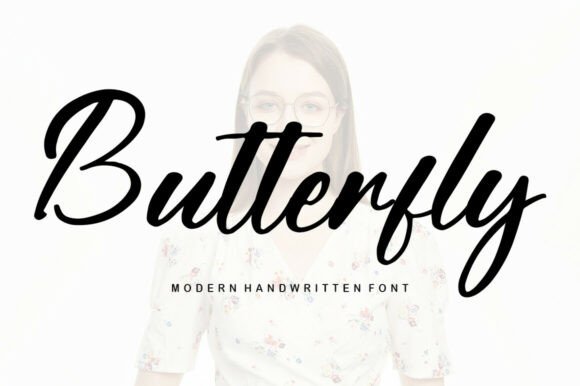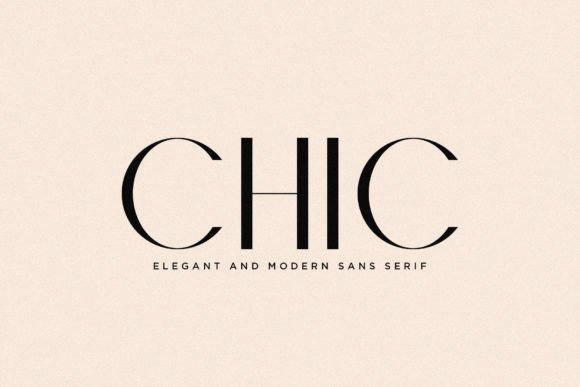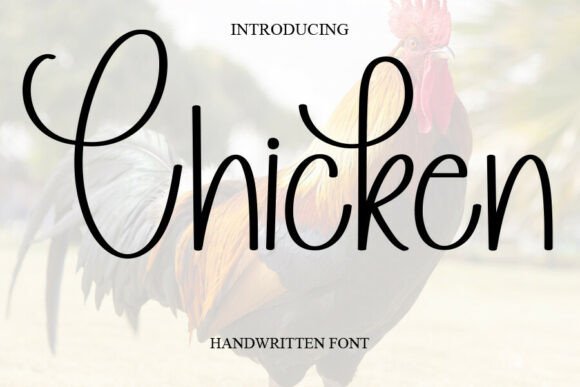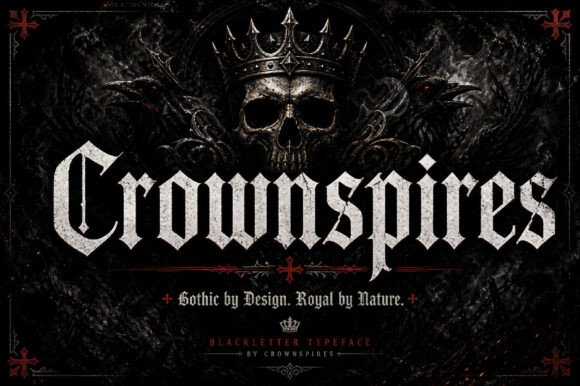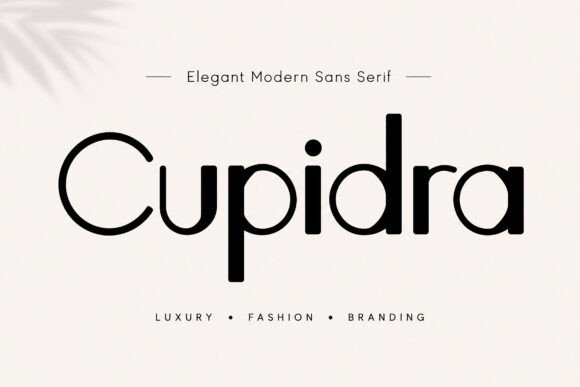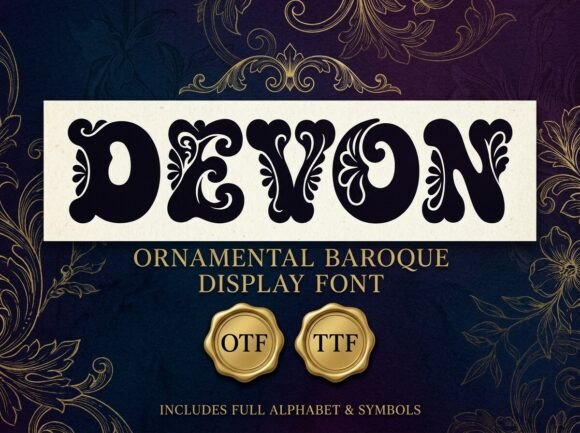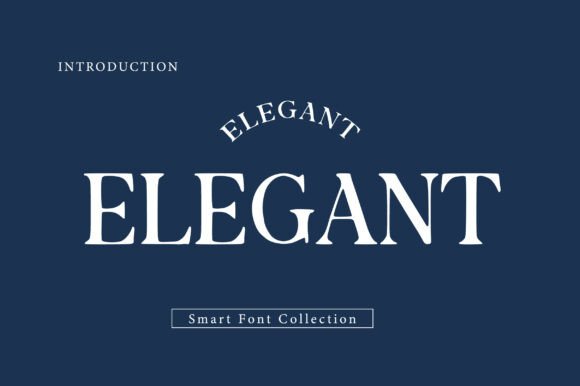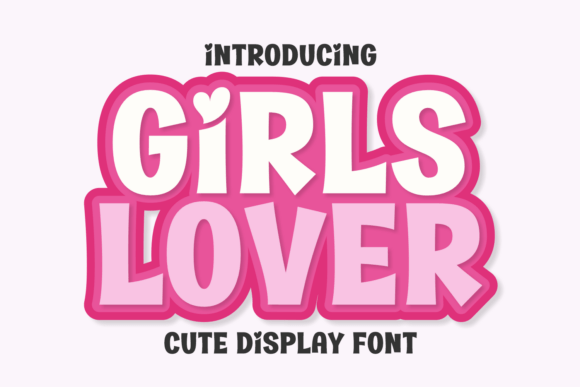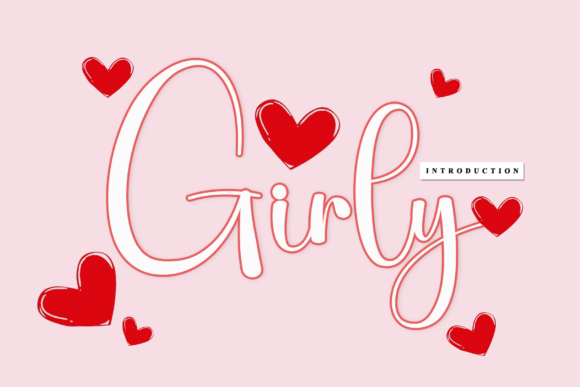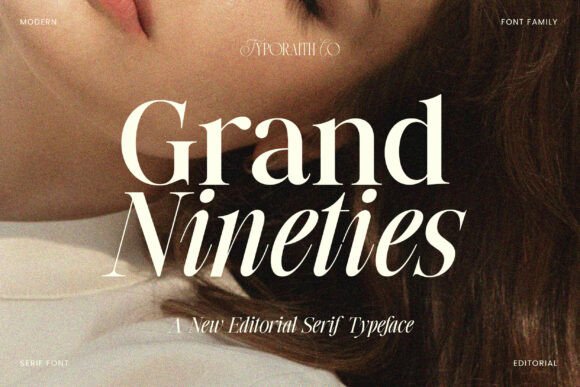
15 Pretty Feminine Fonts for Beauty Brands (2026)
Feminine fonts for beauty brands set a mood of softness, care and quiet luxury before a product is even seen. Whether it is a skincare line, a salon or a cosmetics label, the type carries the gentleness the brand promises. The best feminine fonts for beauty brands feel graceful without turning fragile, so they read pretty and still work on a small label.
This guide sorts 15 fonts by use, soft scripts, elegant serifs, clean feminine sans and a few bold options, so you can match the feeling to your beauty brand.
How to choose feminine fonts for beauty brands
Feminine does not have to mean fragile. A few rules keep feminine fonts for beauty brands soft yet usable.
• Two voices: a soft script or serif for the logo, a clean sans for ingredients.
• Mind the cap: the wordmark must still read small on a jar or tube.
• Soft, not weak: choose graceful faces that keep enough weight to print.
• Stay consistent: reuse the same pair across packaging and social.
Feminine script fonts for beauty logos
Start here. These feminine script fonts for beauty brands give a logo a soft, graceful, hand-written touch.
Samantha
Samantha is a gracefully balanced script. Among feminine fonts for beauty brands it makes a soft, elegant wordmark for skincare, salons and cosmetics. Keep it to the brand name and a short accent, with a clean sans for ingredients. The balanced strokes read pretty and stay legible at a comfortable size. For a beauty brand that wants a graceful script logo, Samantha is a lovely font worth a close look.
Butterfly
Butterfly is a beautiful, well-balanced, graceful script. Among feminine fonts for beauty brands it gives a logo a delicate, airy feel, good for a floral or natural beauty line. Keep it to the name and a short accent, with a clean sans for detail. The light forms read tender at size. For a beauty brand that wants a soft, delicate script logo, Butterfly is a graceful font worth trying.
Homestay
Homestay is a beautiful, well-balanced, graceful script. Among feminine fonts for beauty brands it brings a warm, homely softness, good for a wellness or natural-beauty brand. Keep it to the name and a short accent, with a clean sans for ingredients. The flowing forms read gentle at size. For a beauty brand that wants a warm, graceful script logo, Homestay is a lovely font worth a look.
Chicken
Chicken is a sweet, gentle cursive font. Among feminine fonts for beauty brands it gives a soft, friendly wordmark for an indie or playful beauty line. Keep it to the name and a short line, since cursive joins blur small, paired with a clean sans. The gentle forms read tender at size. For a beauty brand that wants a sweet, hand-written logo, Chicken is a charming cursive worth trying.
Romantic
Romantic is a sweet, gentle cursive font. Among feminine fonts for beauty brands it lives up to its name, giving a logo a soft, loving warmth for a beauty or bridal line. Keep it to the name and a short accent, with a clean sans for detail. The gentle forms read tender at size. For a beauty brand that wants a romantic, hand-written logo, Romantic is a lovely cursive worth a look.
Girly
Girly is a sweet, gentle cursive font. Among feminine fonts for beauty brands it brings a playful, youthful softness, good for a fun cosmetics or teen beauty line. Keep it to the name and a short accent, with a clean sans for detail. The gentle forms read sweet at size. For a beauty brand that wants a girly, hand-written logo, Girly is a charming cursive worth trying.
Elegant serif fonts for beauty brands
For a refined wordmark, these elegant serif feminine fonts for beauty brands read graceful and premium.
Grand Nineties
Grand Nineties is a modern editorial serif with elegance. Among elegant serif feminine fonts for beauty brands it gives a wordmark a fashion-magazine polish, suiting a premium or editorial beauty line. Use it for the name and headers, with a clean sans for ingredients. The editorial forms read refined at size. For a beauty brand that wants an editorial serif logo, Grand Nineties is a graceful font worth a look.
Advance Elegant
Advance Elegant is a refined face that blends sophistication with a soft elegance. Among feminine fonts for beauty brands it makes a polished wordmark for a premium beauty line, graceful without fuss. Use it for the name and a clean sans for detail. The refined forms read upmarket at size. For a beauty brand that wants a sophisticated, elegant logo, Advance Elegant is a lovely font worth trying.